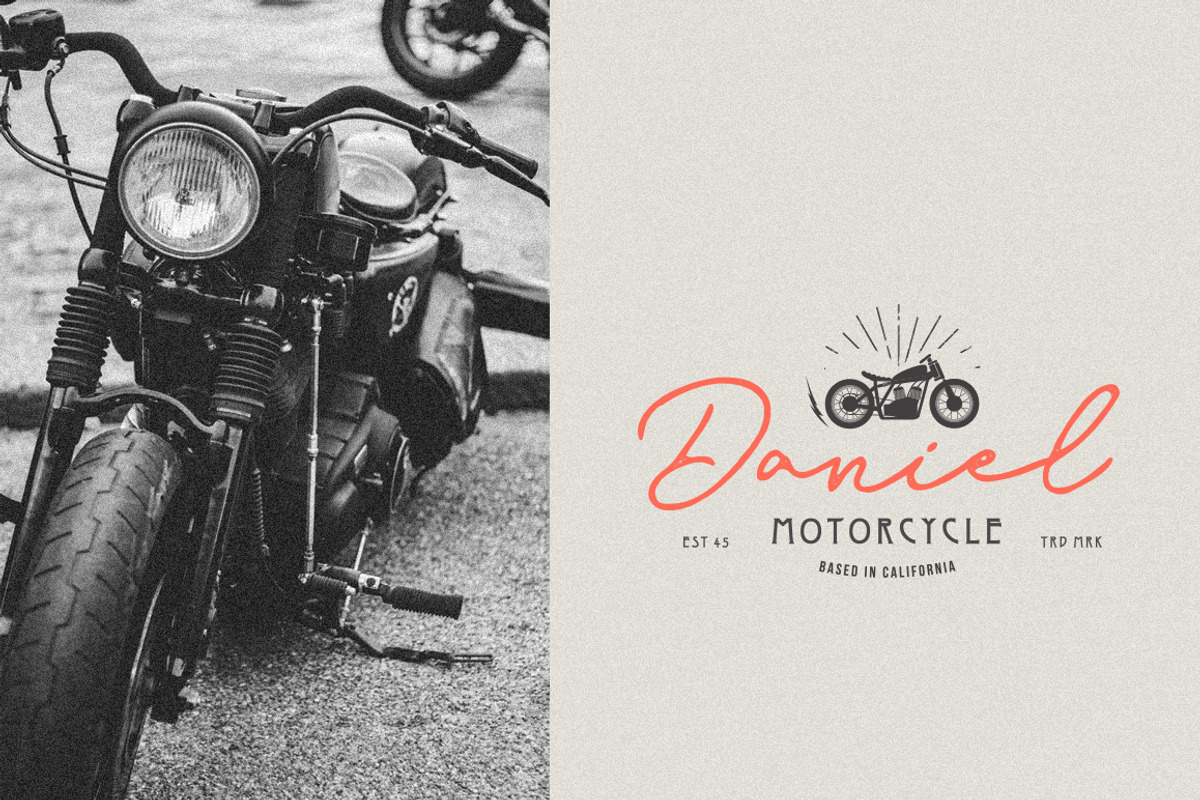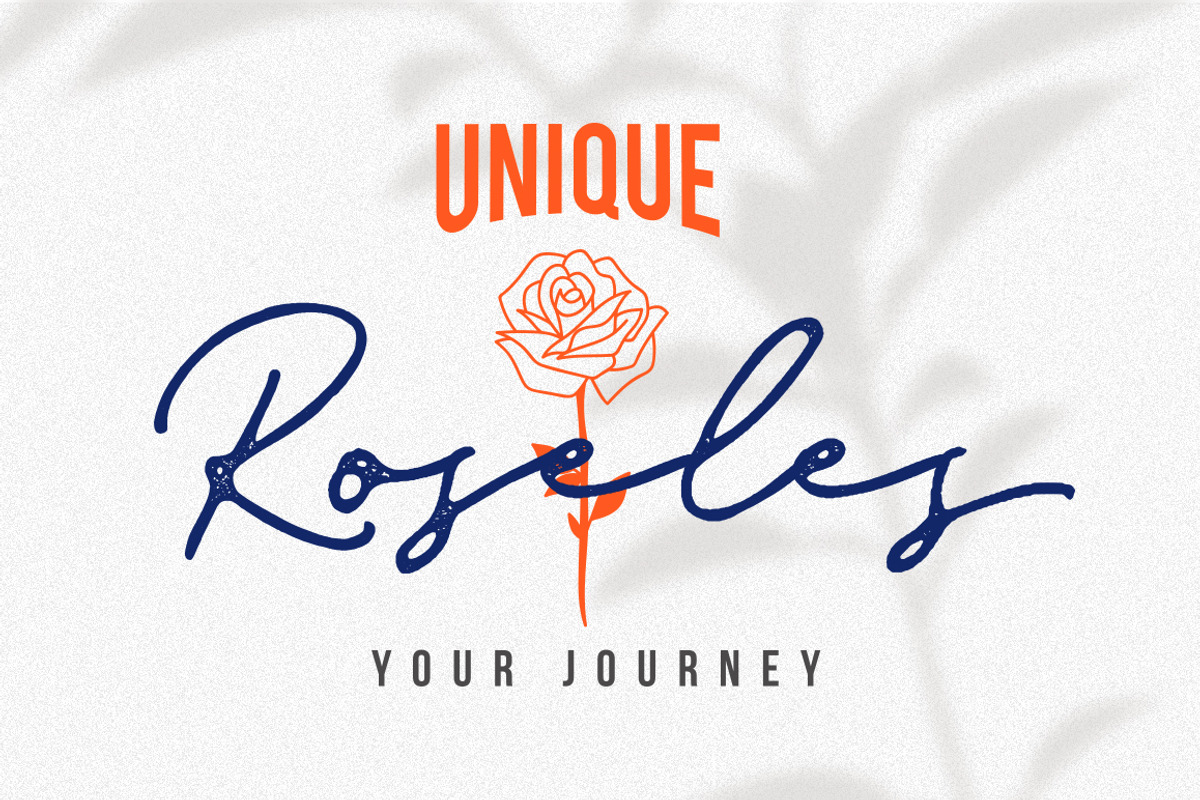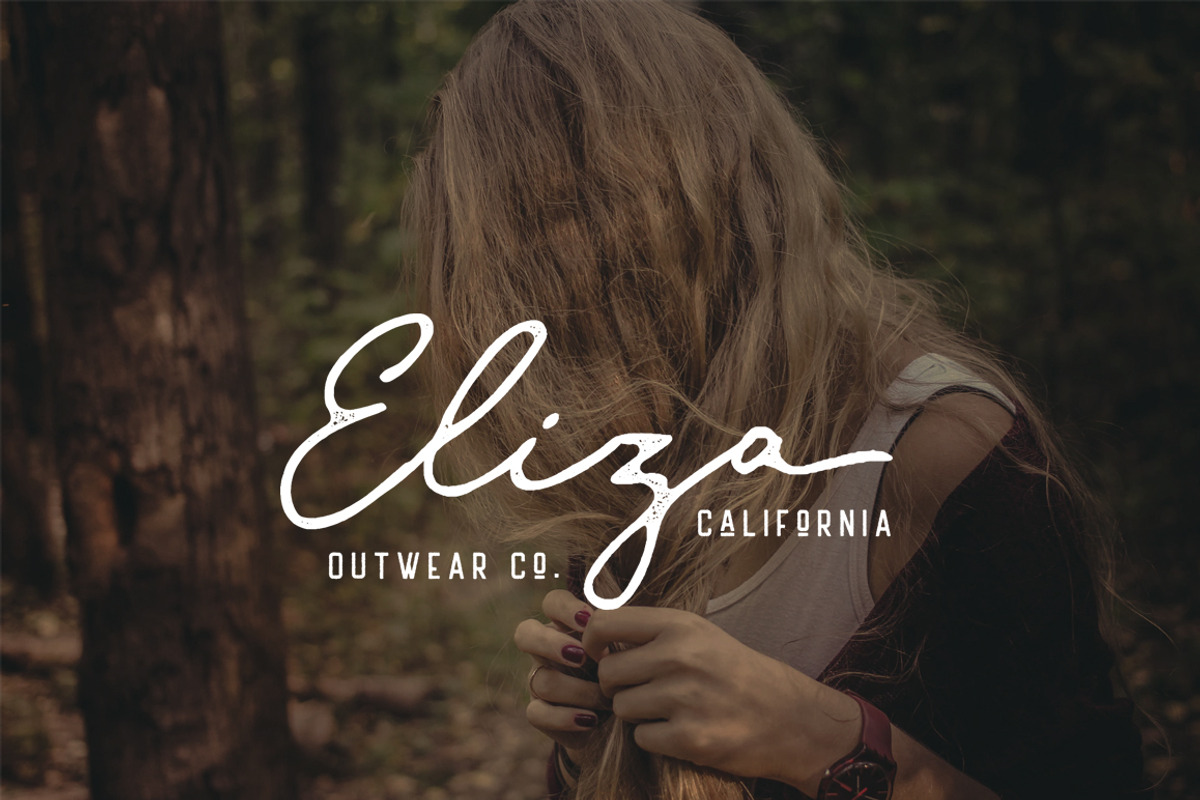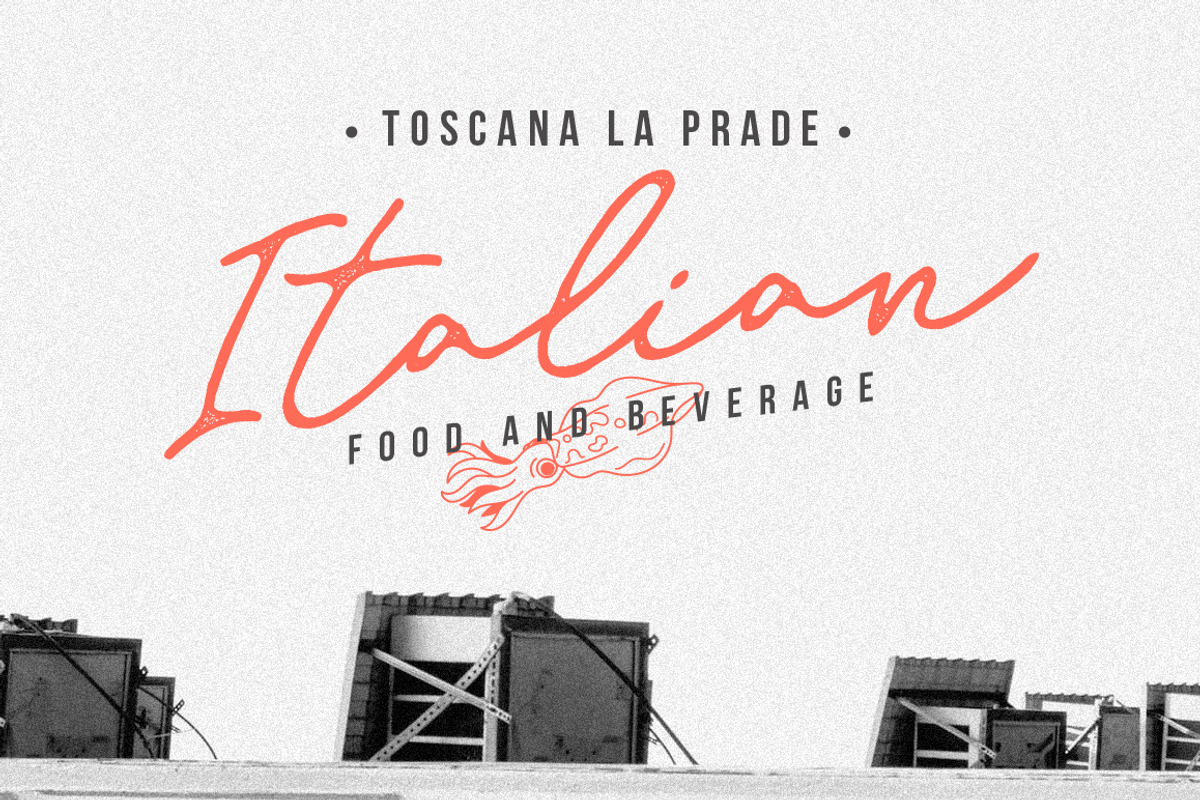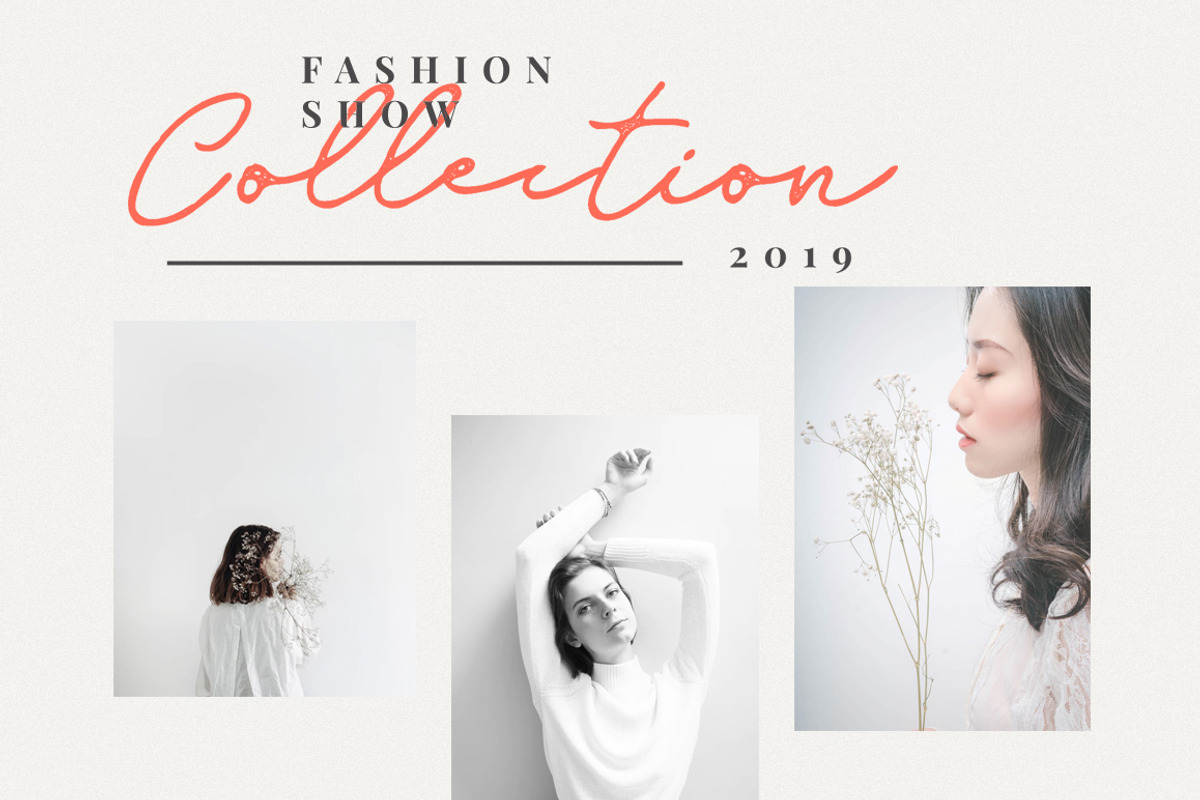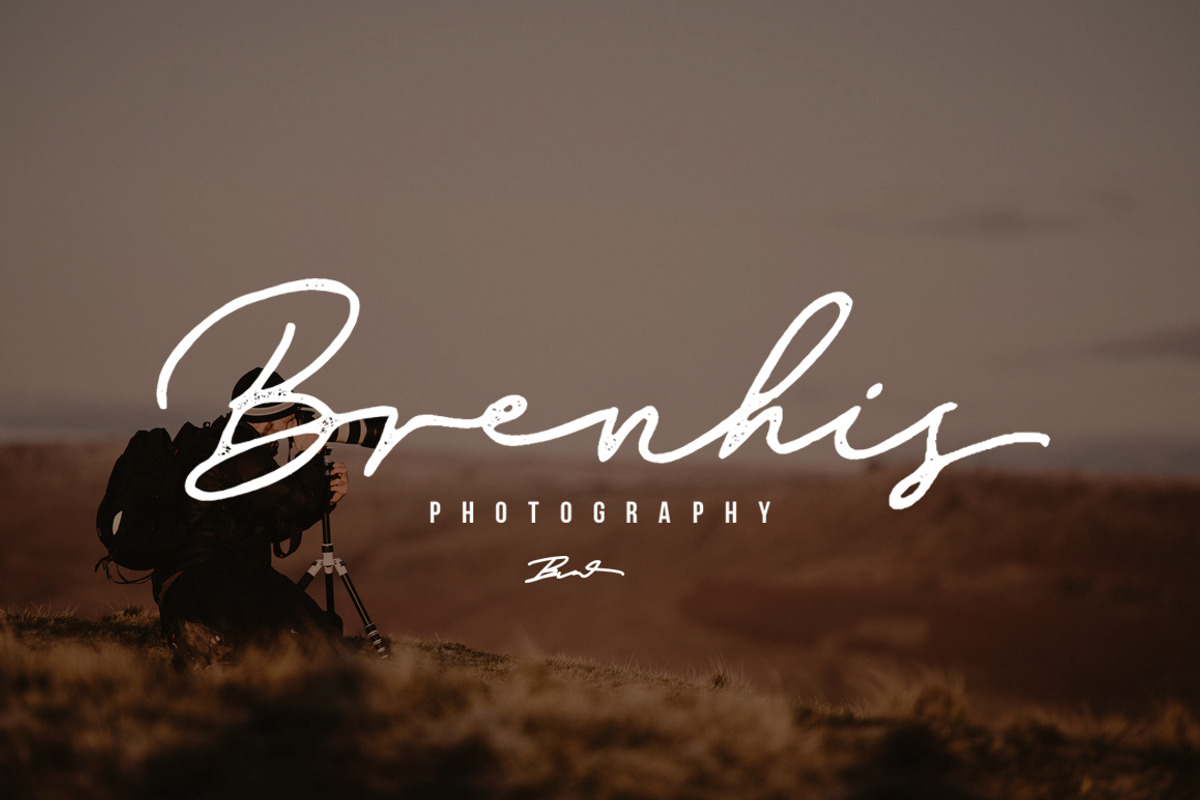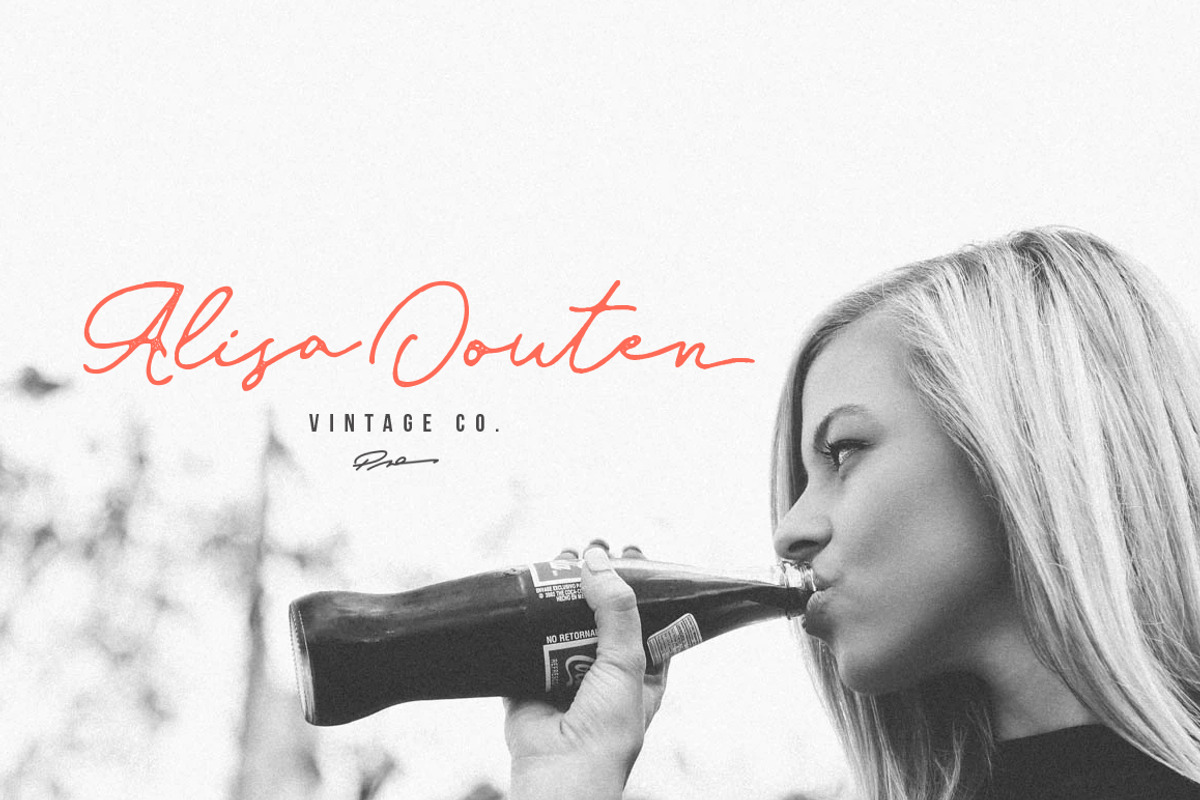
Old Bridges - Vintage Signature Font
Old Bridges Inspired by Modern Vintage Signature font with 3 styles (Regular, Stamp, Rough)
Old Bridges Script allowing you to create hand lettering is an instant and a super handy set of bonus Swash. Ideal for logos, handwritten quotes, product packaging, header, poster, merchandise, social media & greeting cards.
Old Bridges - Vintage Signature Font by Vultype Co. fits naturally into Branding, posters, packaging, typography.